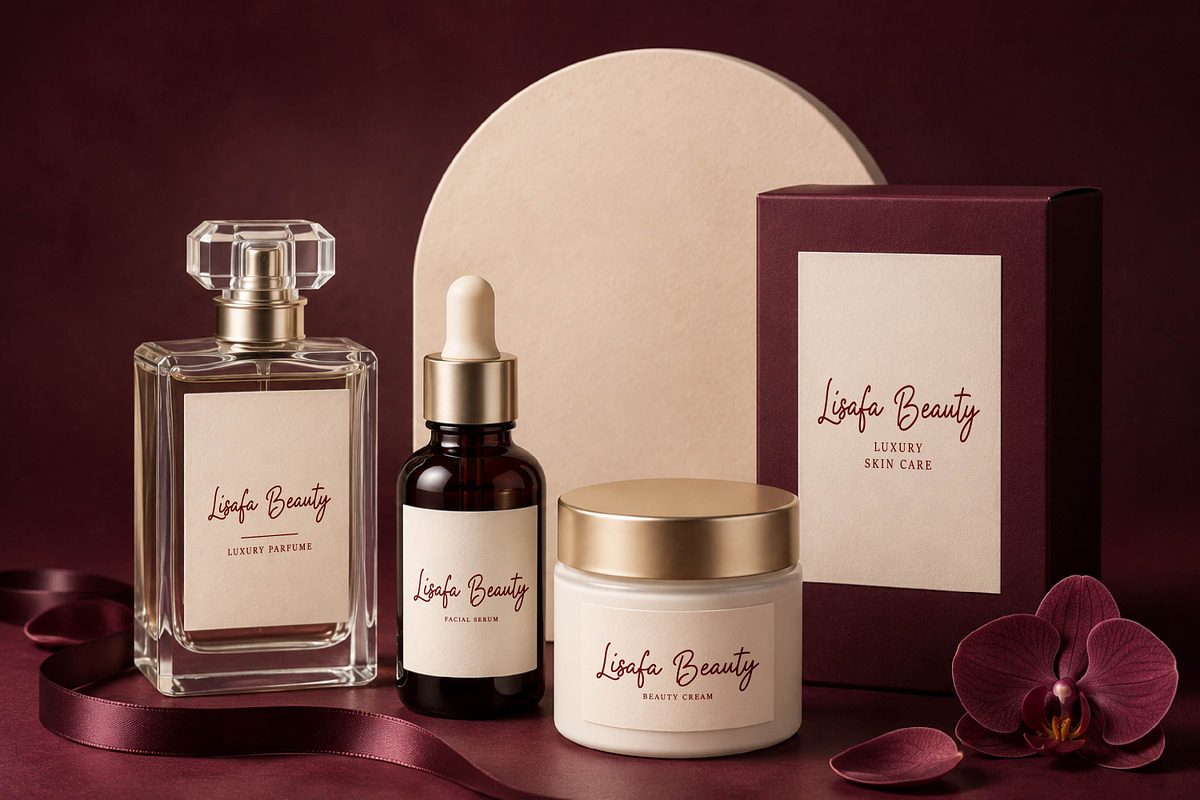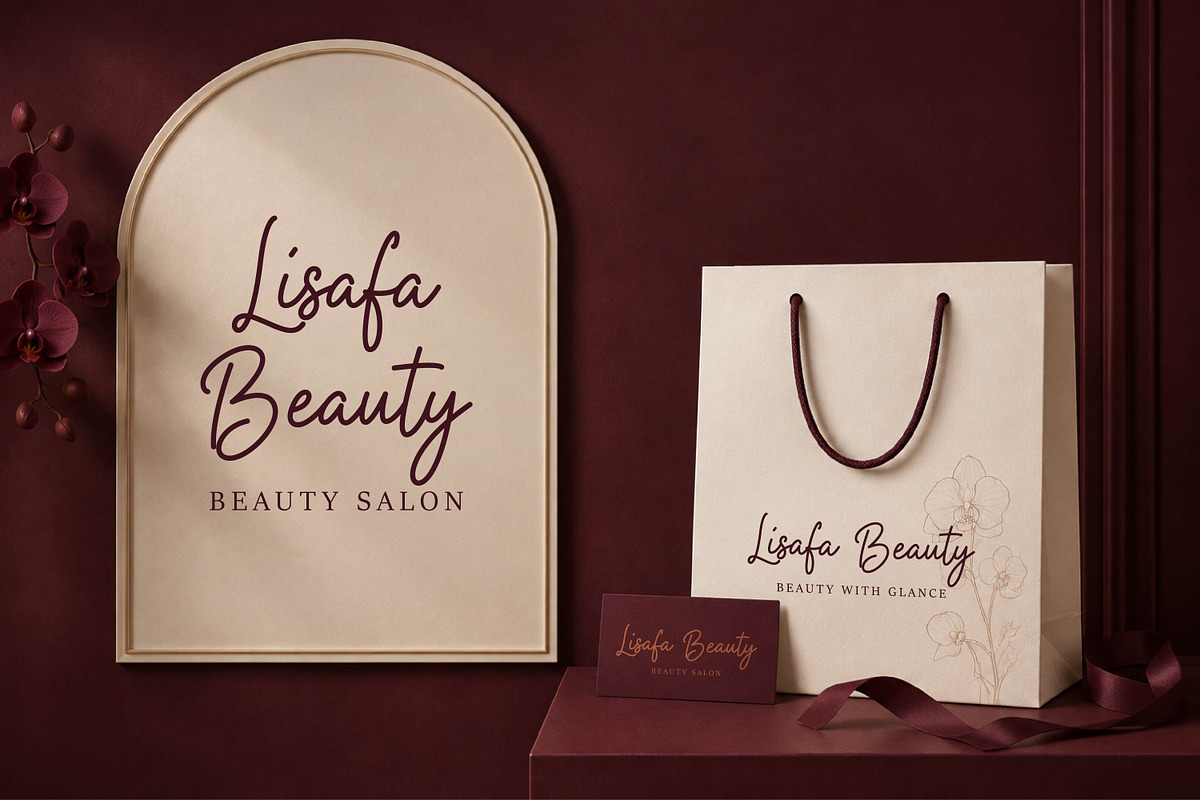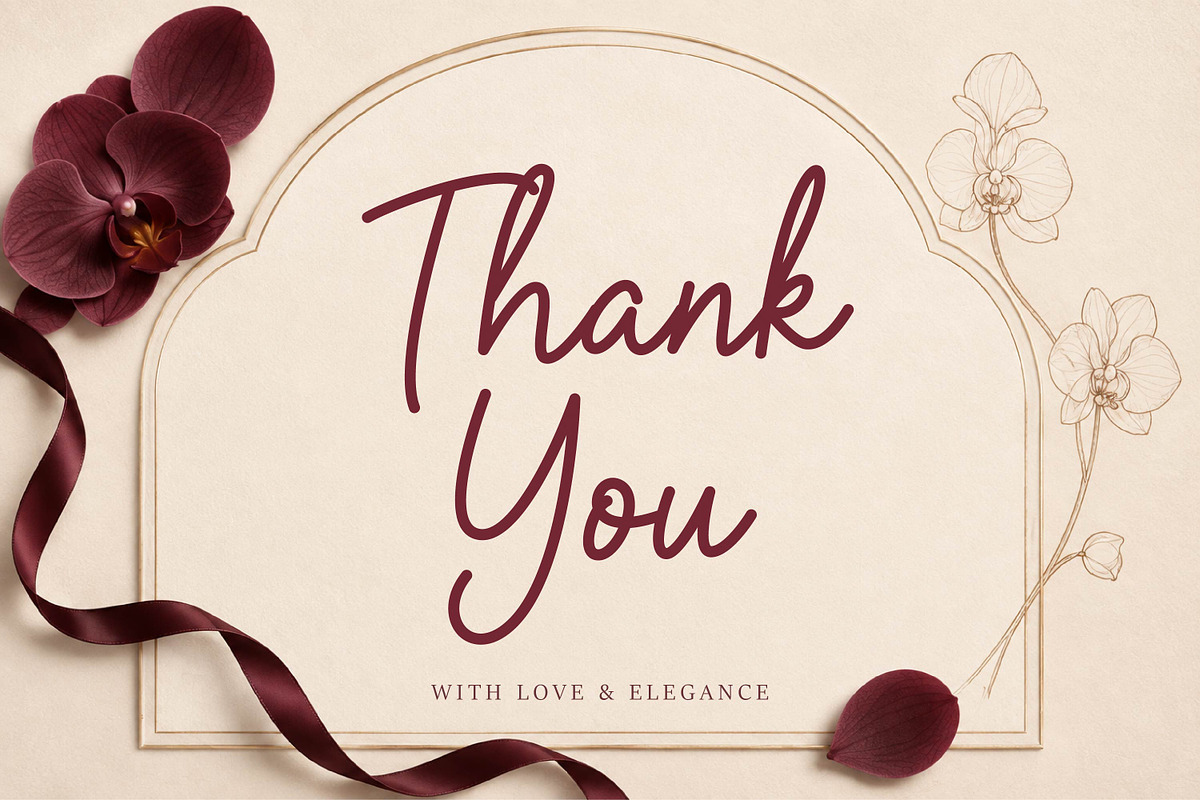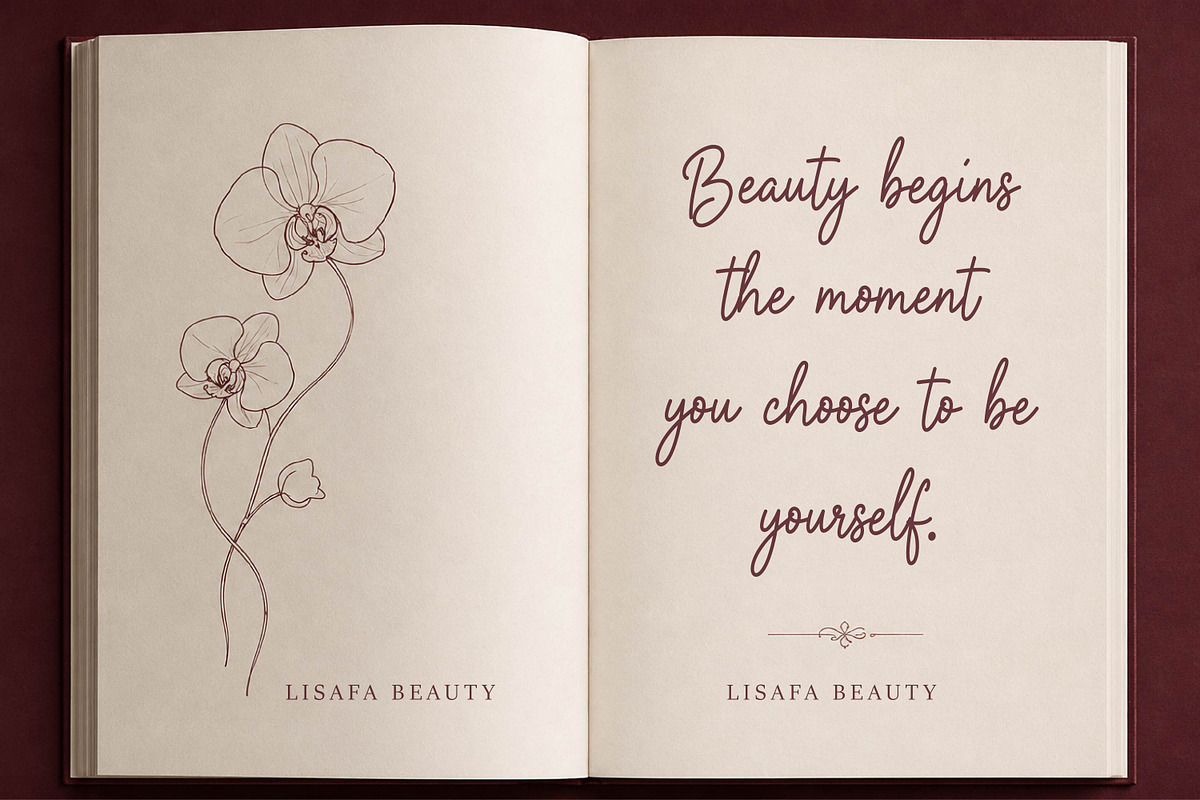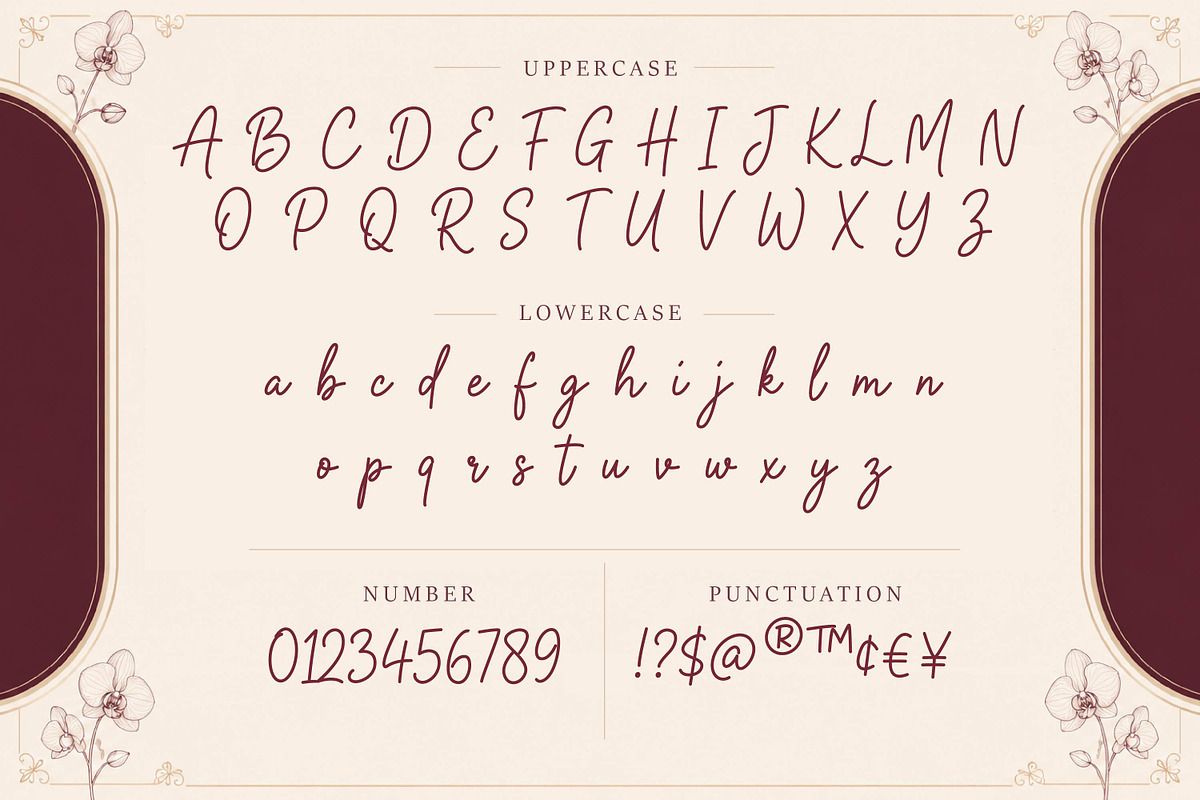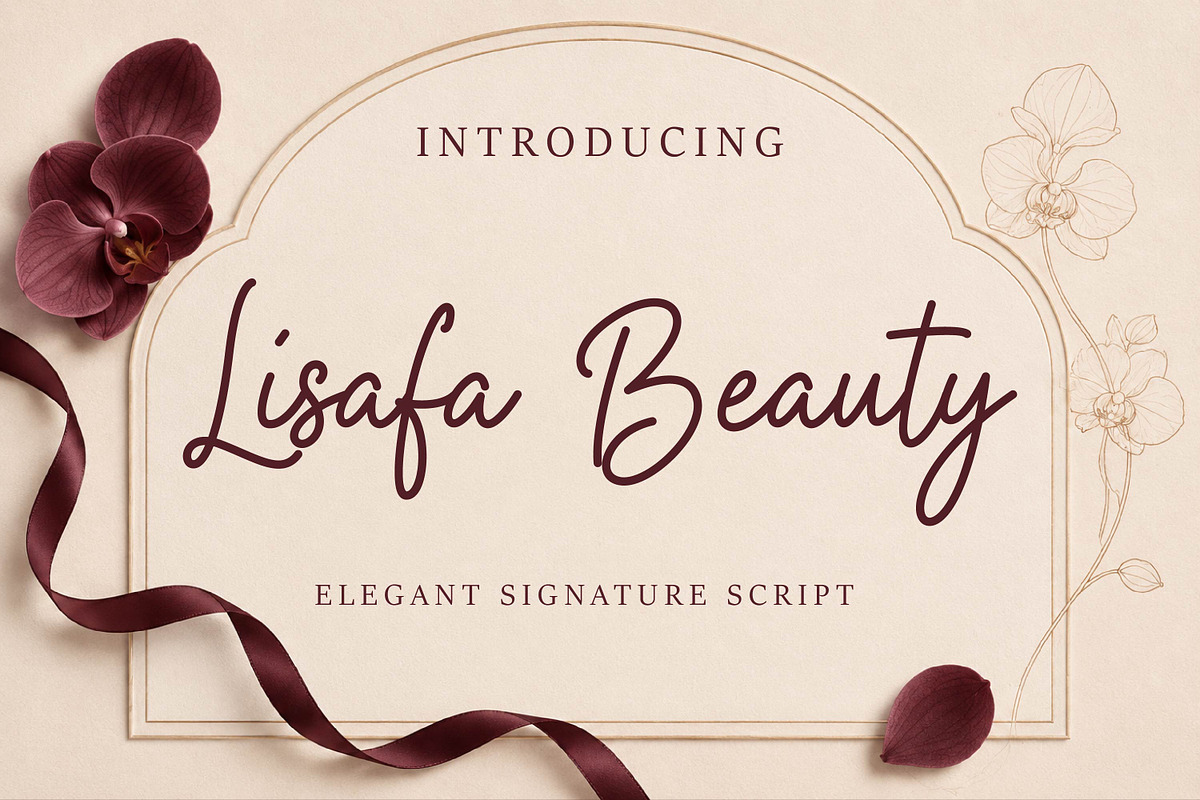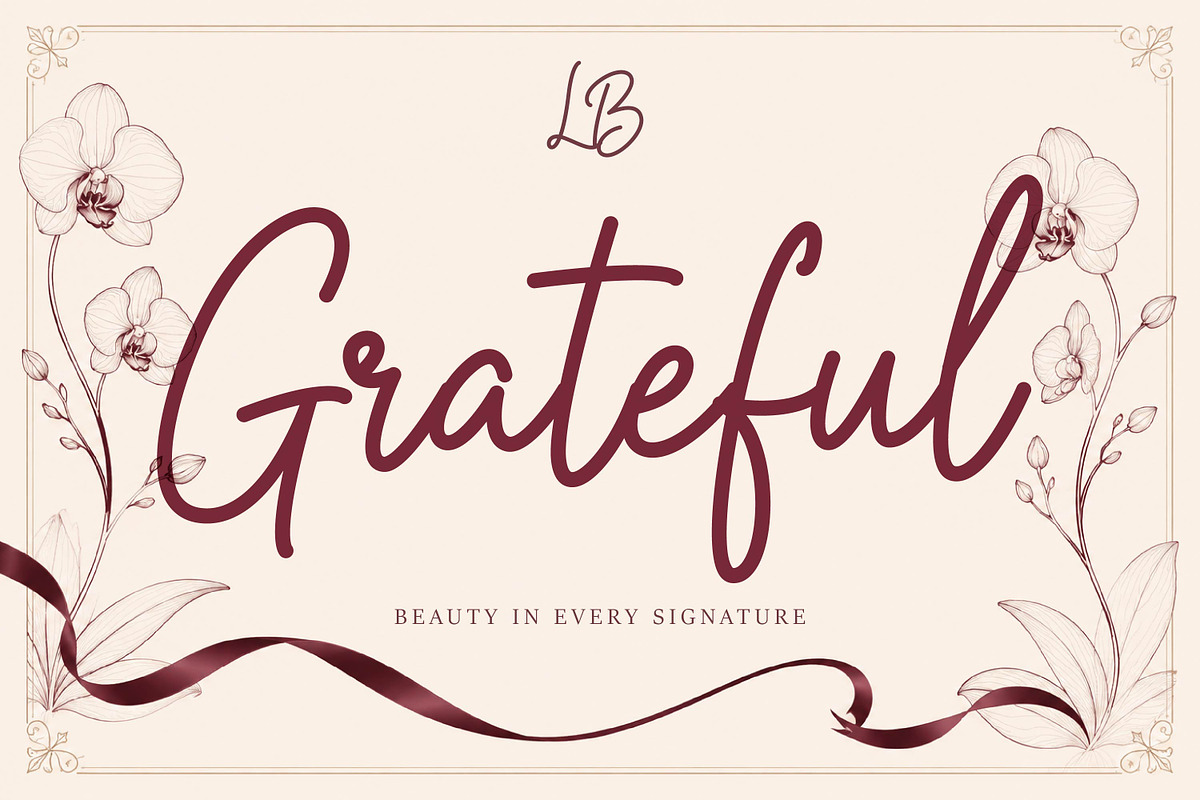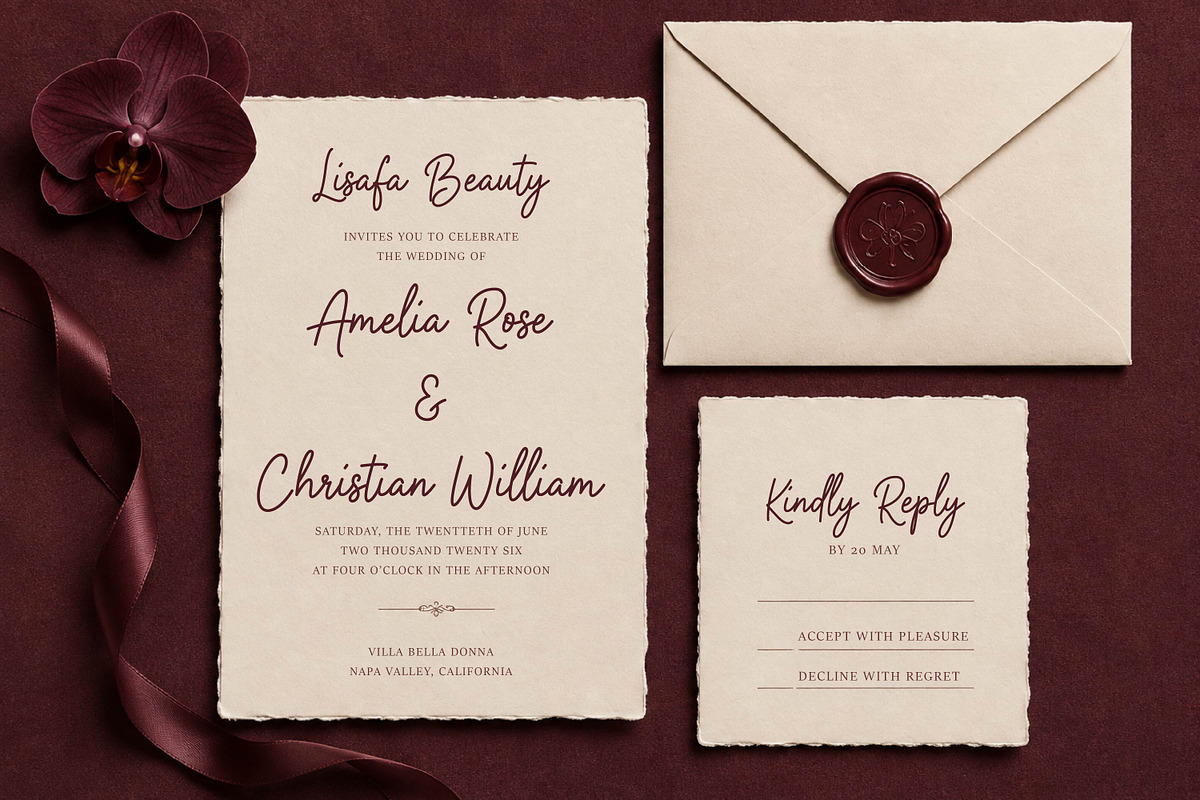
Lisafa Beauty - Signature Script
Lisafa Beauty - Elegant Signature Script Font
Lisafa Beauty is an elegant signature script font featuring graceful strokes, natural handwritten flow, and a refined feminine character. Perfect for luxury branding, wedding stationery, beauty logos, invitations, packaging, fashion, social media, and sophisticated editorial designs.